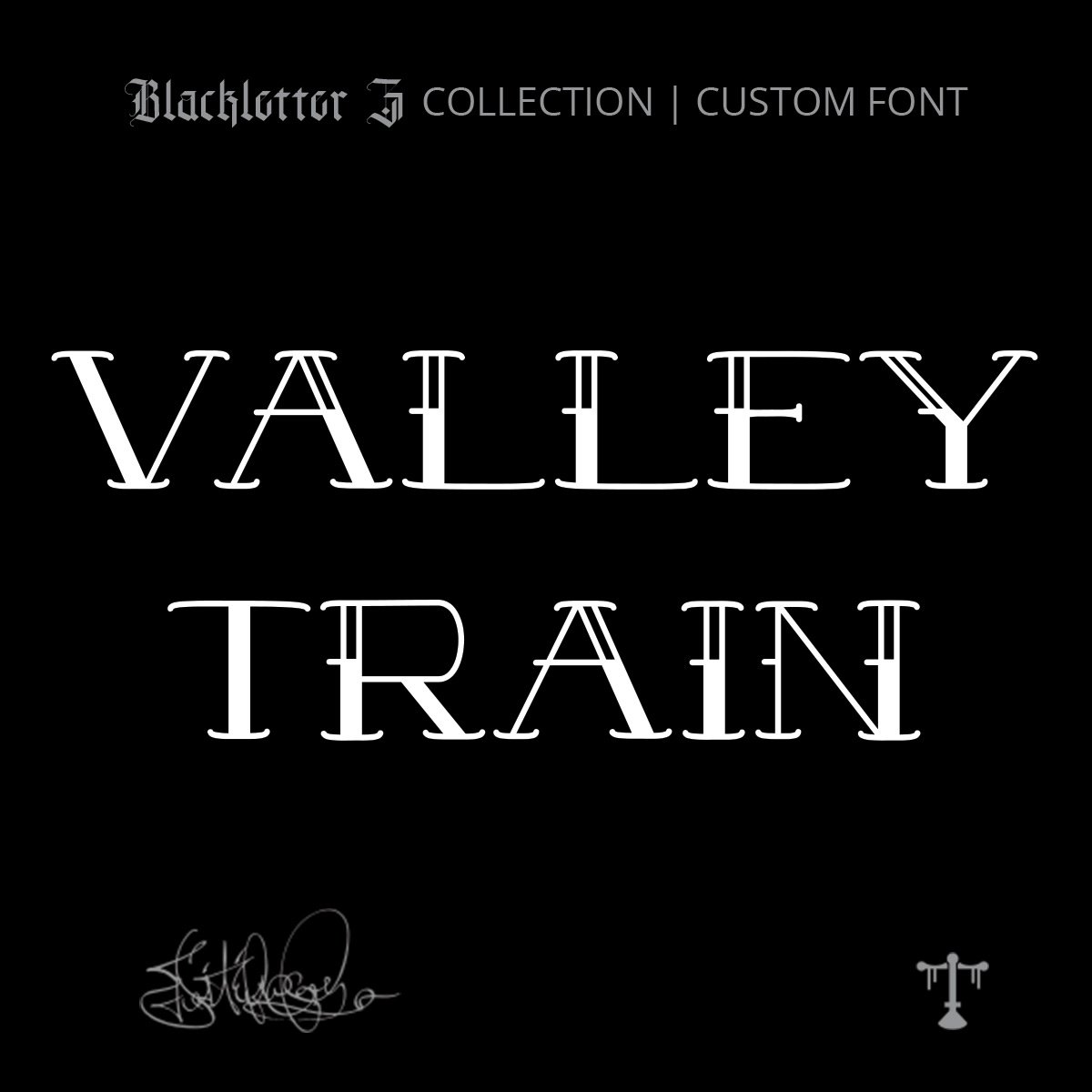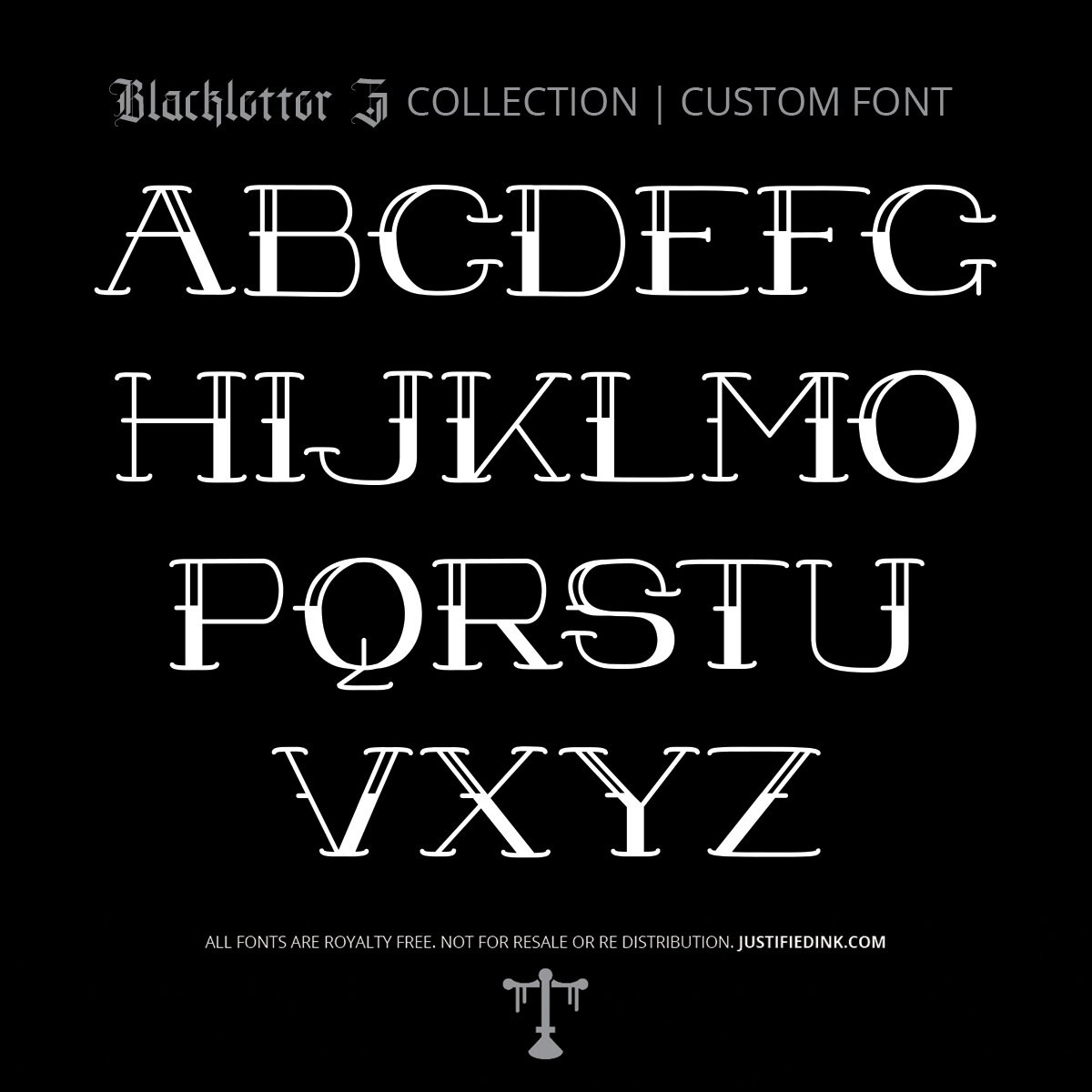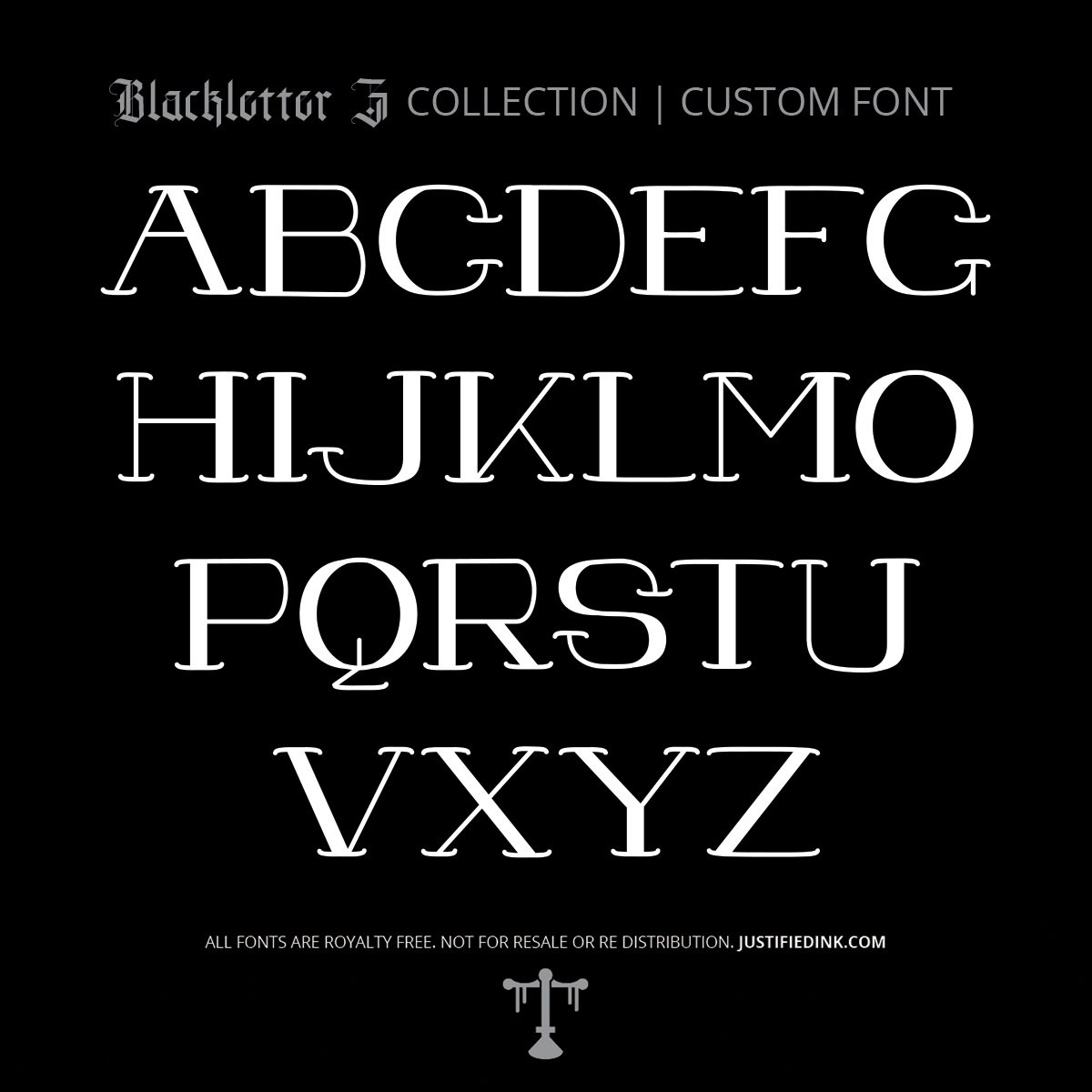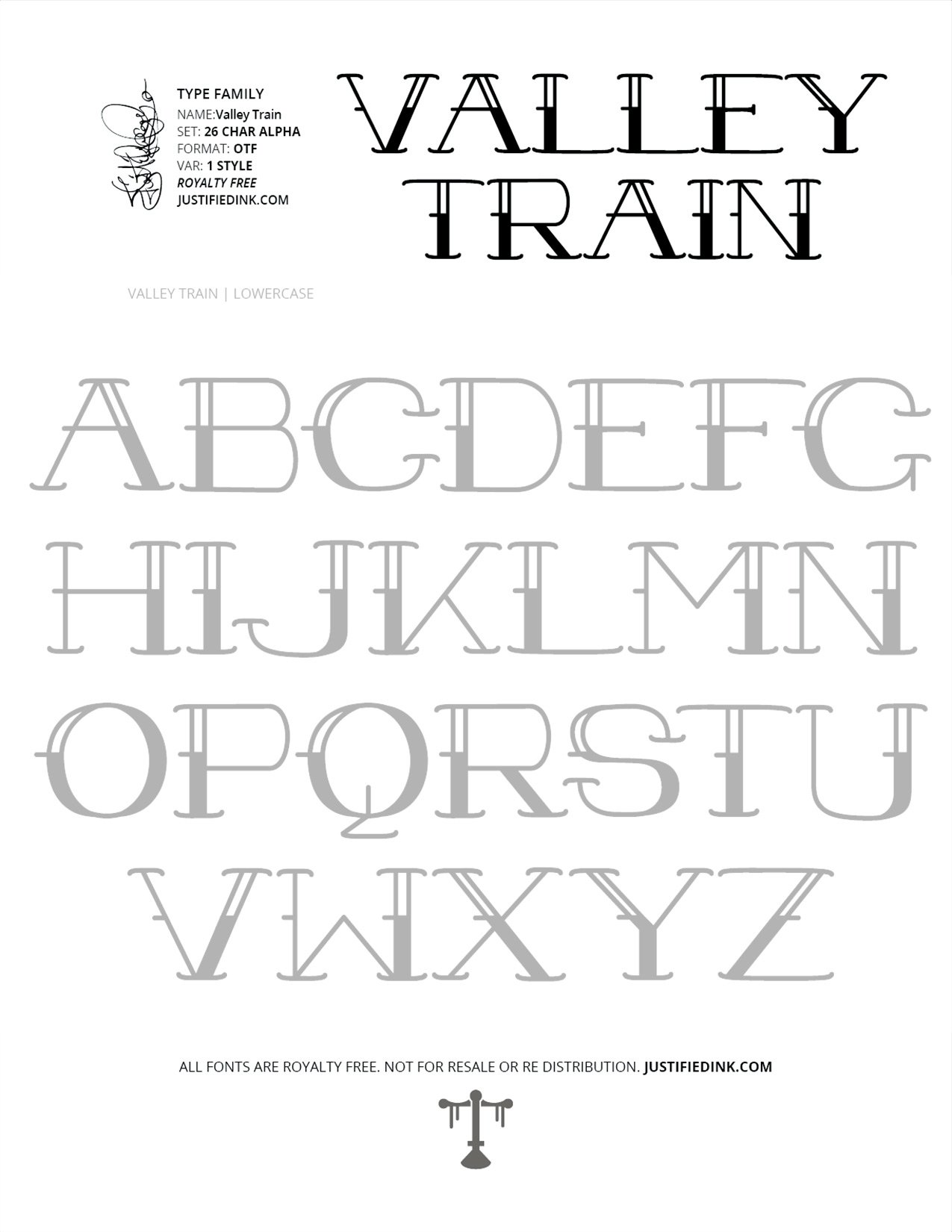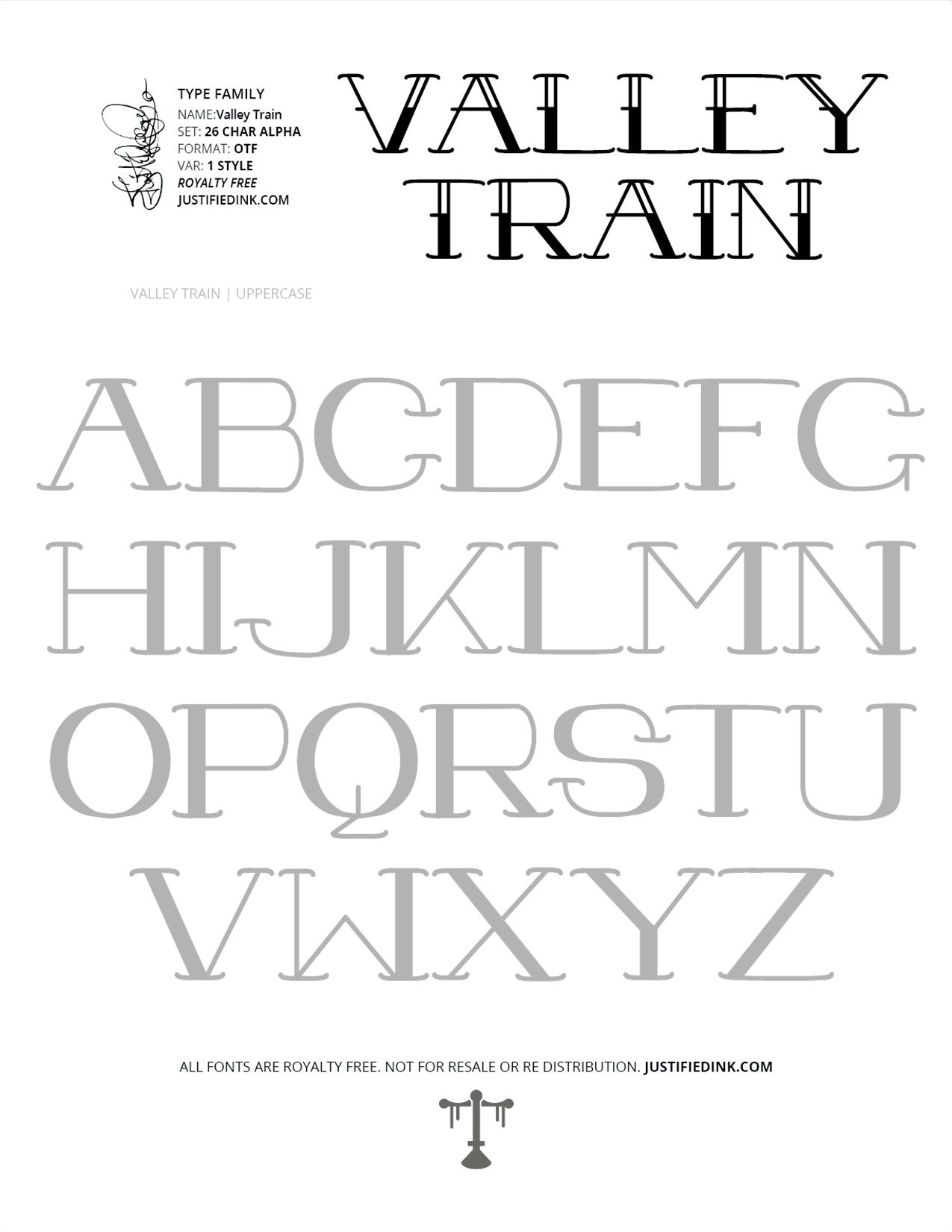
Valley Train (1 style) - Custom Font
American Tattoo tradition Meets Steel Rail
Valley Train merges classic railyard sign painting with traditional American tattoo lettering. Built with bold strokes and steady rhythm, it carries the feel of something made to move—reliable, visible, and built to endure. It’s lettering that travels, connecting ideas the way rails connect land.
There’s a sense of weight and movement behind every character. Inspired by the markings that pass through plains, deserts, mountains, and cities, Valley Train balances function with style. It’s equally at home on signage, apparel, or bold graphic work—designed to hold its form wherever it lands.
Beyond the digital form, Valley Train Font Package includes a printable worksheet to help you absorb the style through repetition and intentional practice.